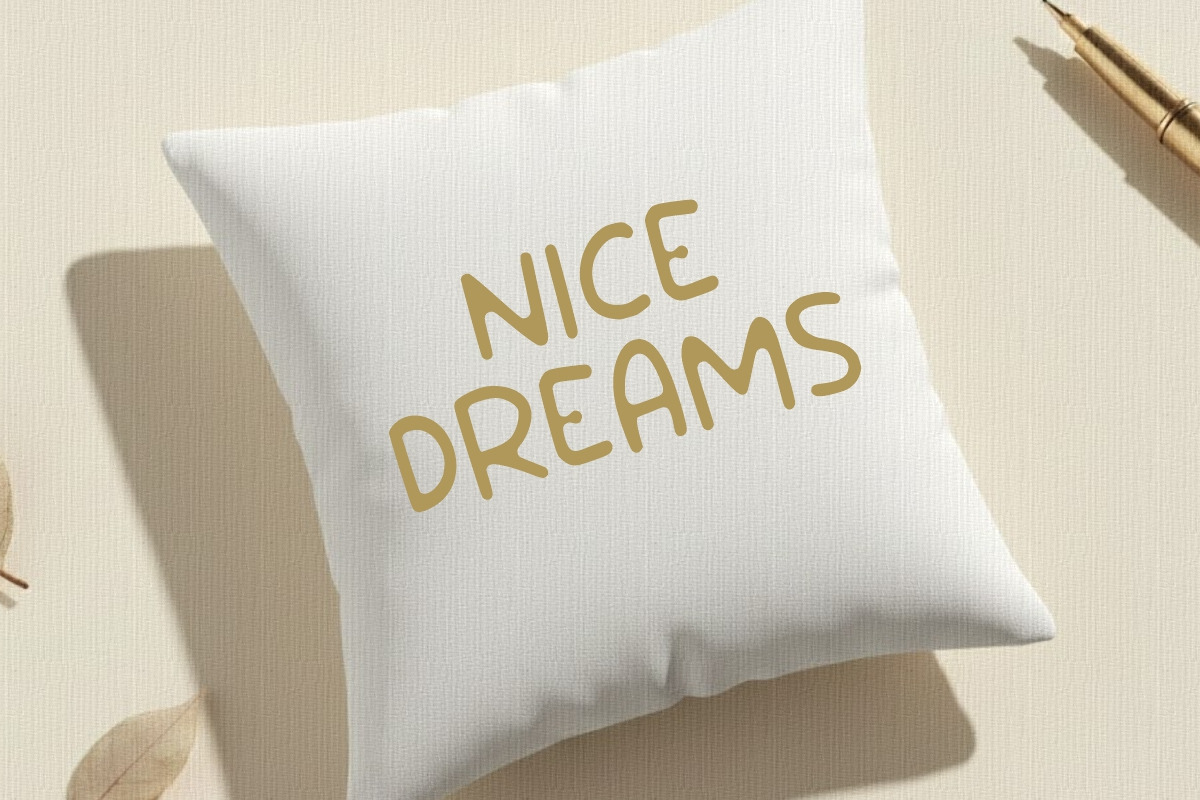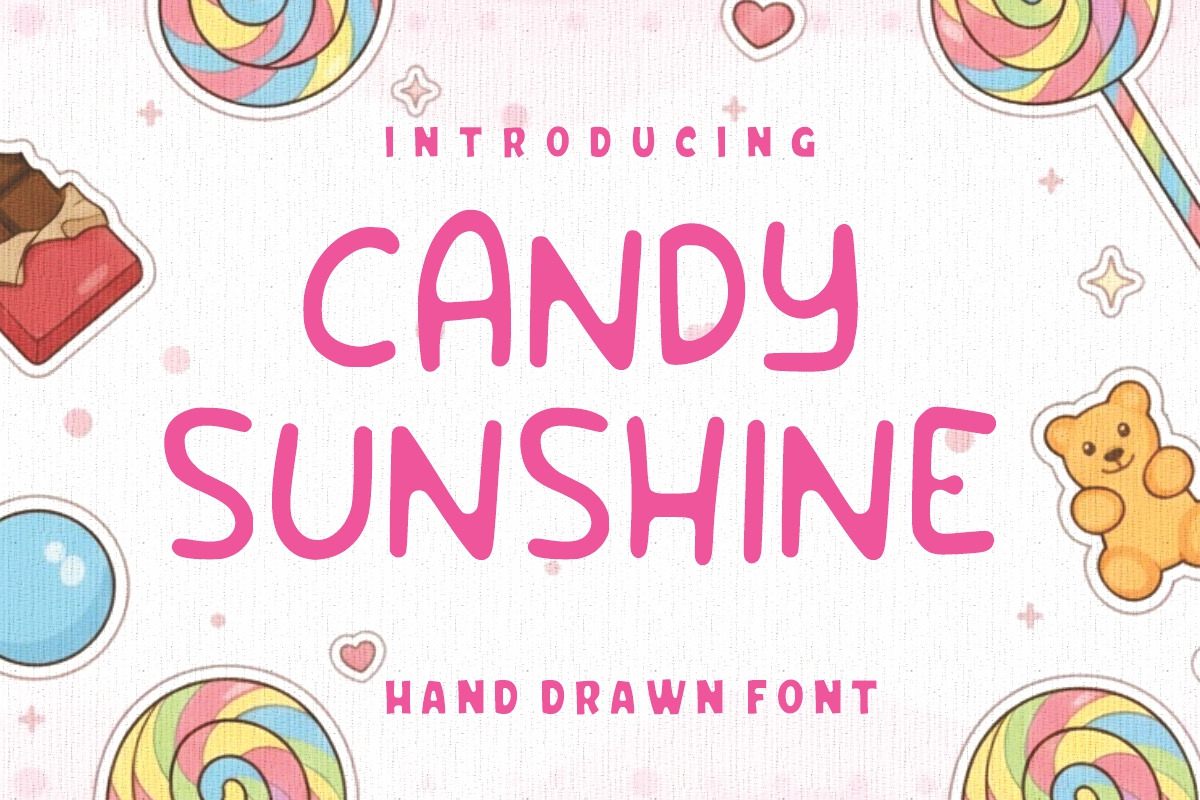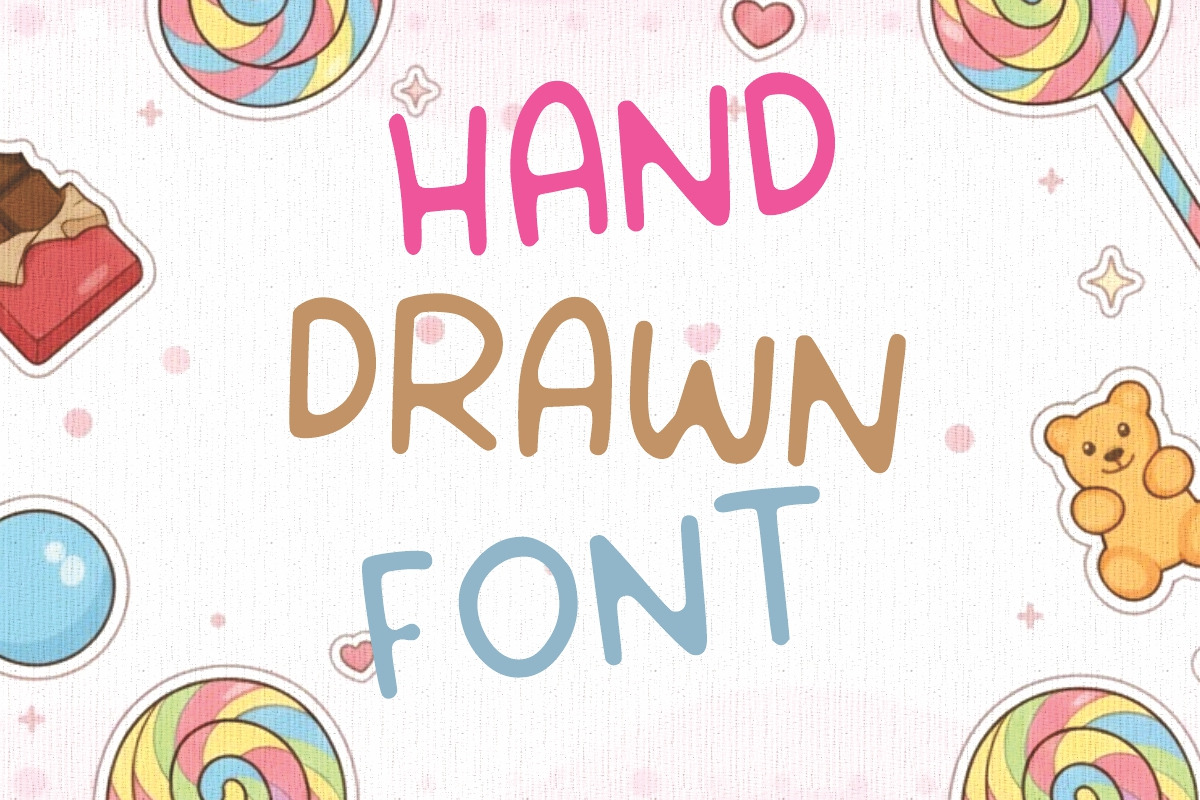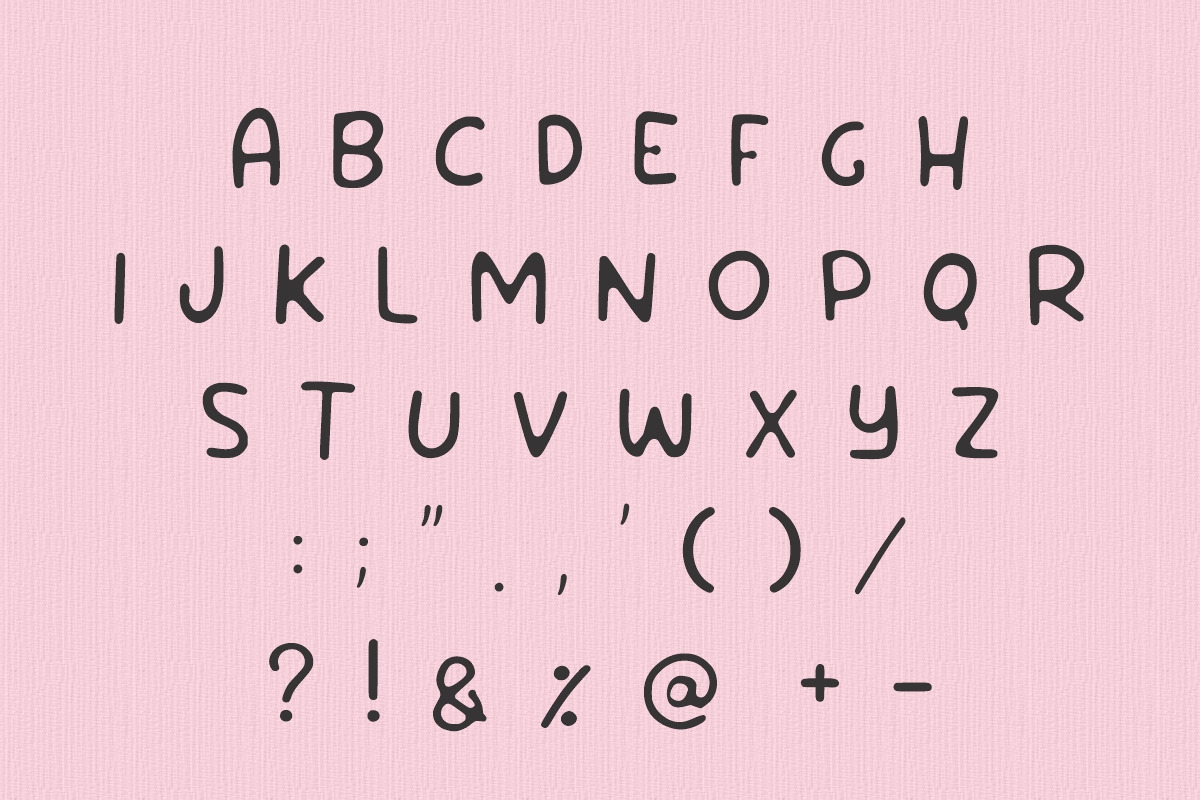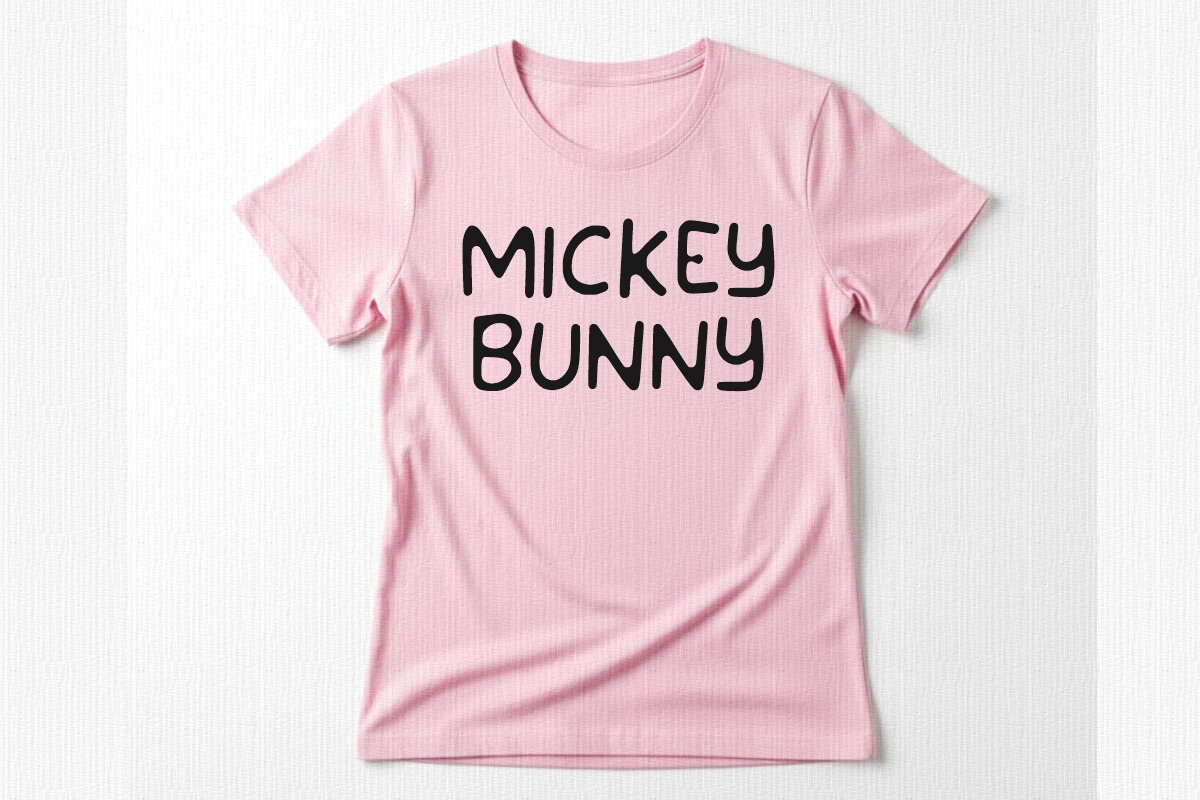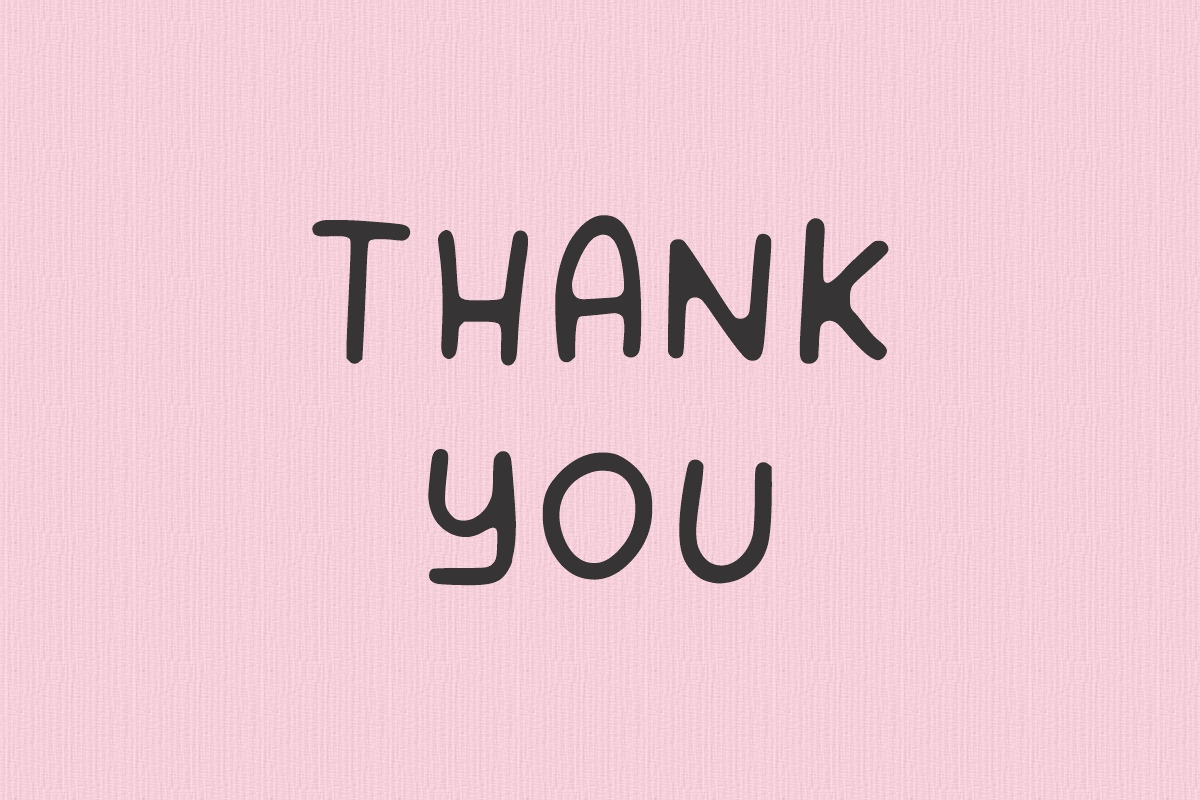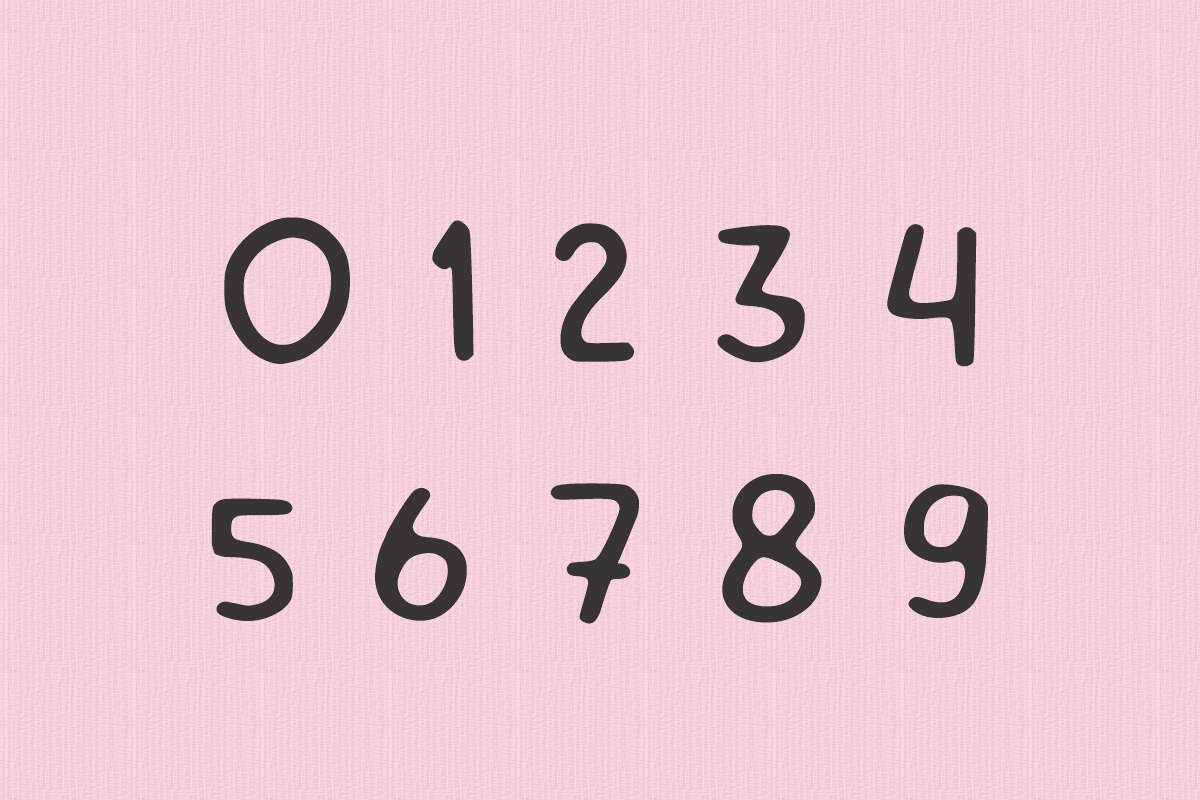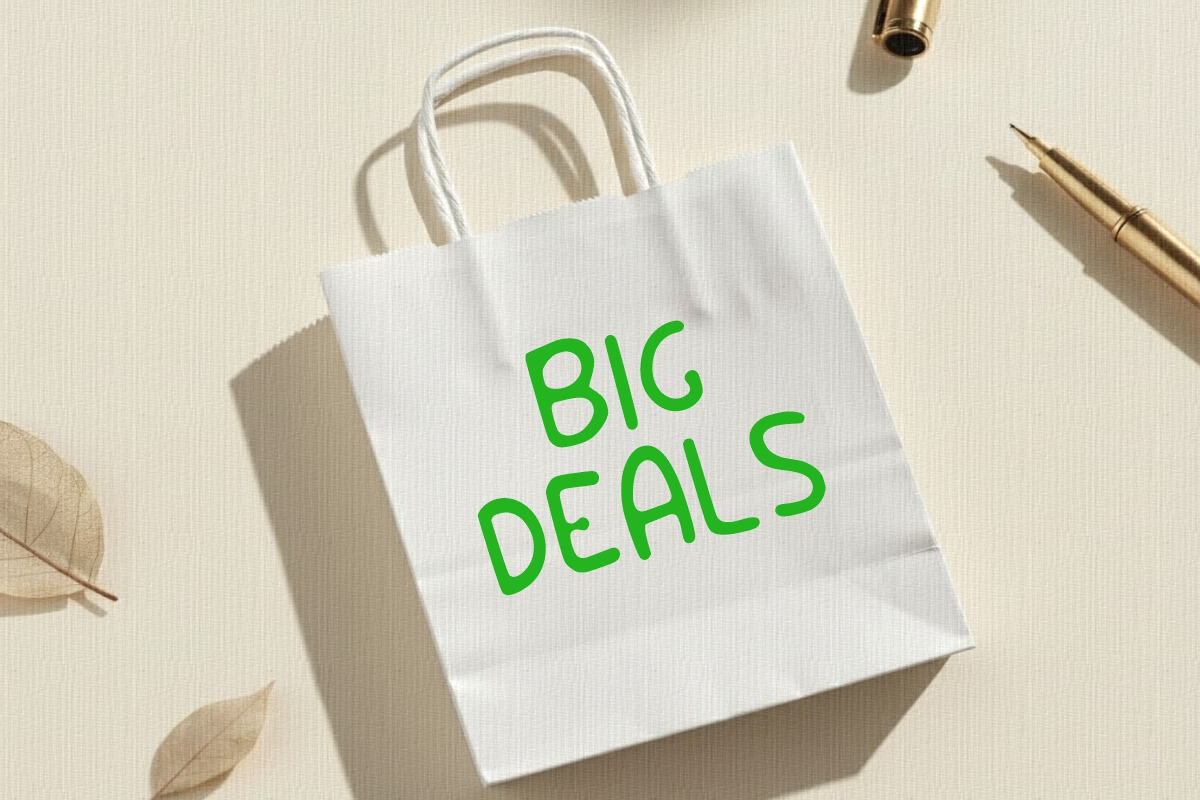
Candy Sunshine cute font
Candy Sunshine is a cute, simple and friendly hand drawn font. Its informal style and casual vibe will make this font a go-to choice for each of your creations that require a relaxed touch. It is suitable for any product packaging, invitation, quote, t-shirt, label, posters, logos that you wish to develop!